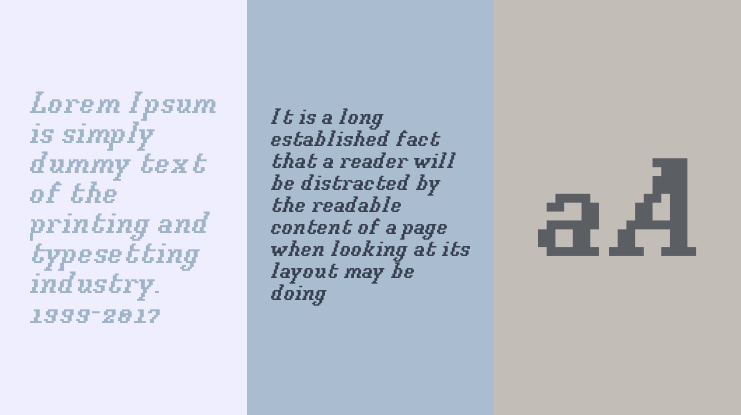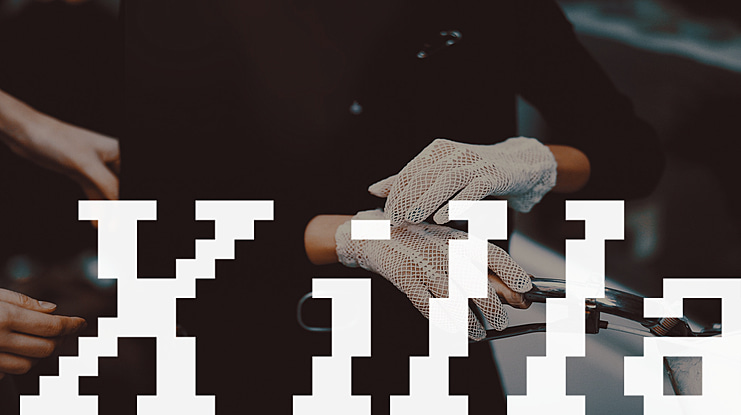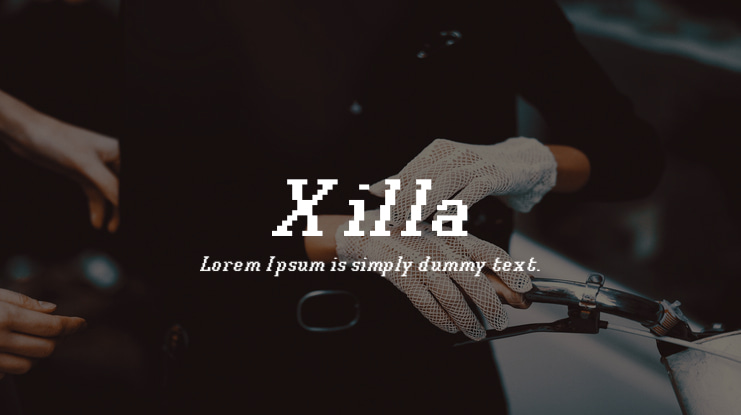
Xilla Font Family
Will Albin-Clark
Pixel slab serif typeface in 2 weights with italicised variants. Inspired loosely by Zilla, the Google open source font.